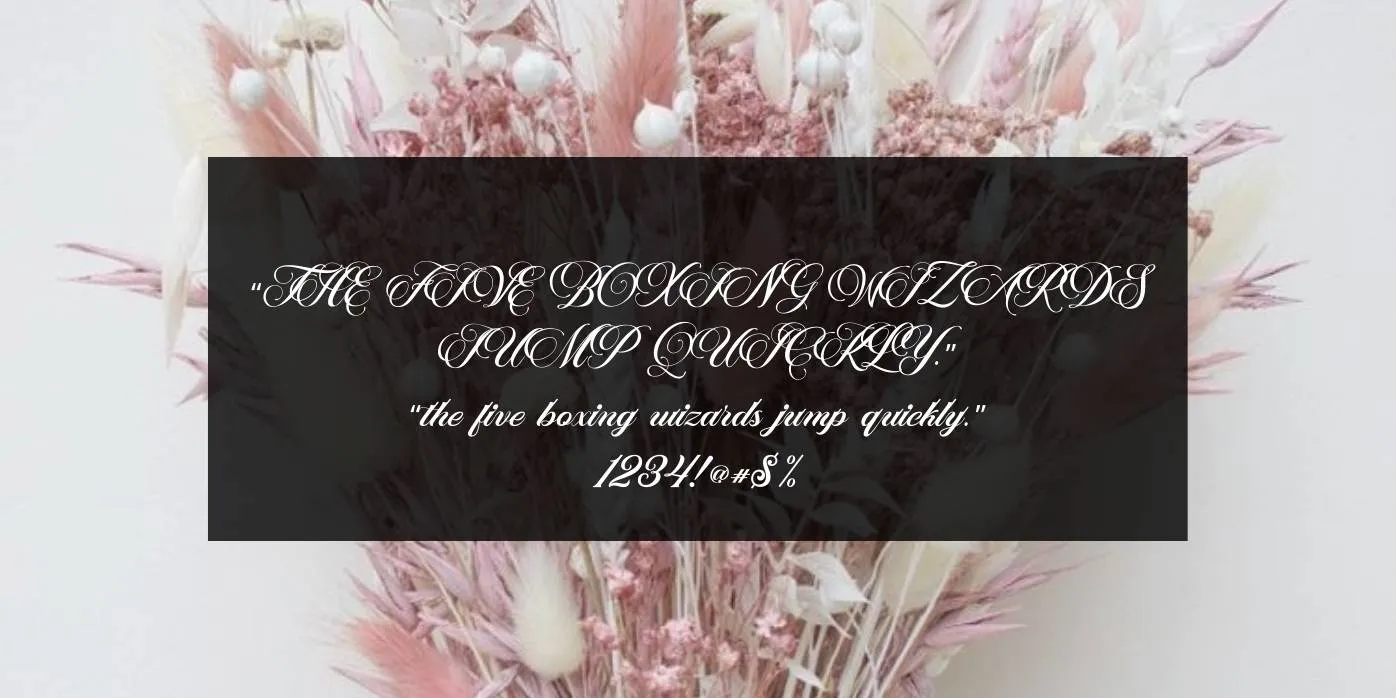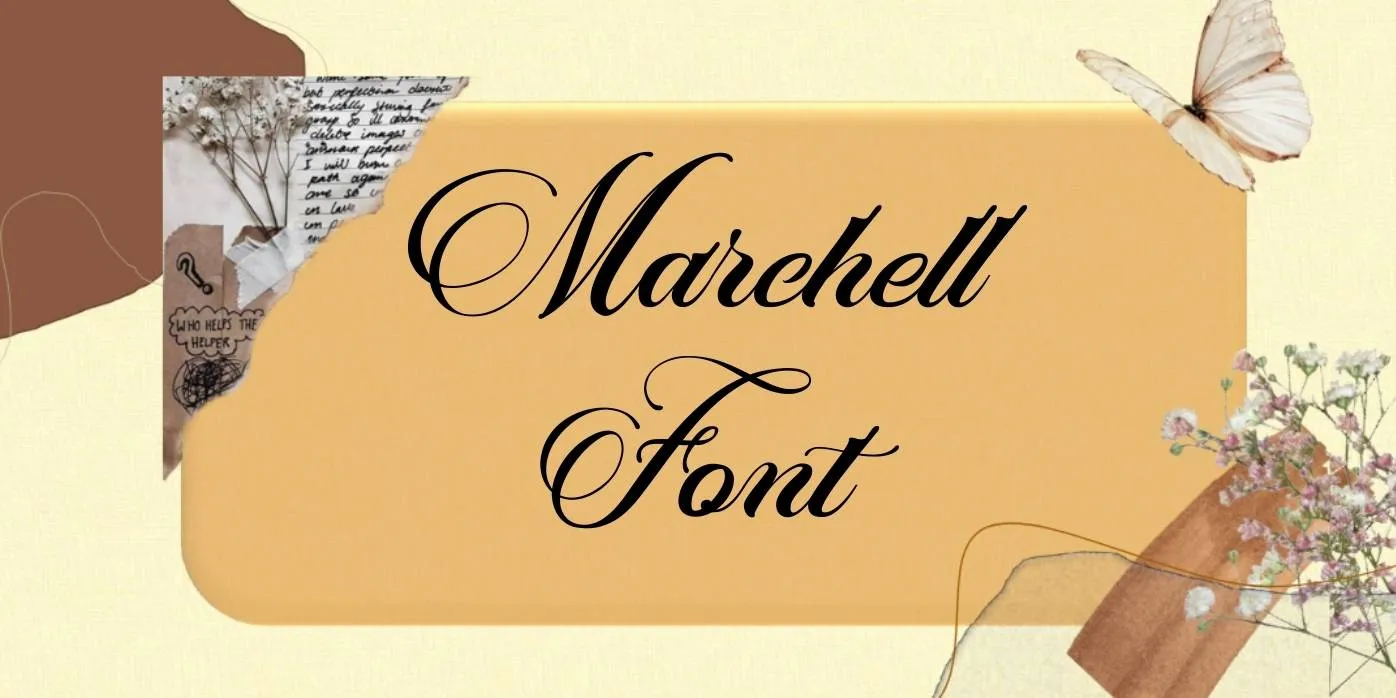
Marchell Font
In this post, we present a stylish typeface named Marchell Font. This font family was developed by Bangkit Tri Setiadi. This font family belongs to the calligraphy typeface family. It is a very elegant and beautiful typeface.
This typeface supports many languages including Latin, Cyrillic, and Vietnamese. Marchell font has a very high level of readability. This font family is perfect for branding, web design, invitations, and other creative projects. Another similar font which is magic font is perfect for different designs.
If you are looking for a stylish yet legible typeface, then Marchell Font is the perfect choice for all of your projects. Its generator tool allows you to create many designs accurately. This typeface also includes a unique set of small caps, which makes it perfect for displays and headlines. It is a great choice for branding and identity work, as well as web and app design.